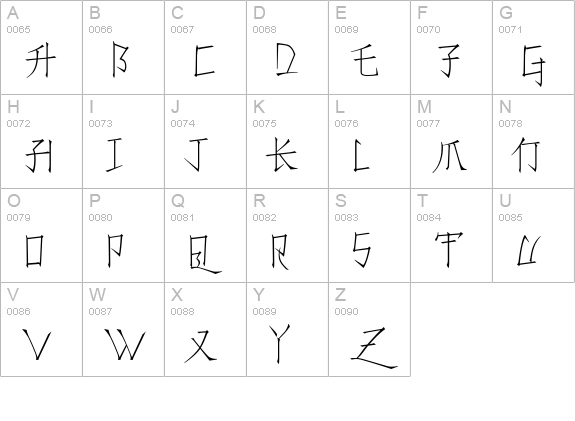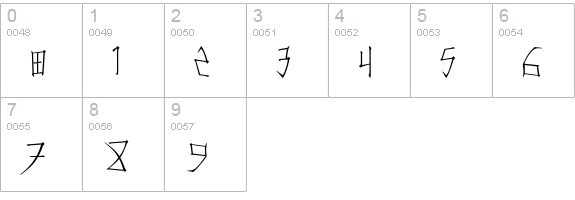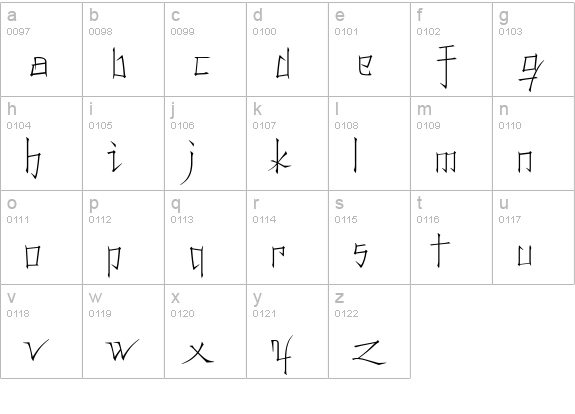
Konfuciuz Thin is a delicate, low-contrast variant in the Konfuciuz typeface family \xE2\x80\x94 well suited to fashion editorial, minimal branding, and high-contrast display.
Konfuciuz Thin font is a sleek and elegant typeface that exudes sophistication and modernity. With its delicate and refined appearance, this font is perfect for adding a touch of sophistication to any design project. The thin strokes and clear letterforms make it an ideal choice for logos, branding, headlines, and more. What sets Konfuciuz Thin font apart is not only its stylish design but also the fact that it is available for free download. That's right, you can easily access this stunning font at FontsMarket.com without any cost. Whether you are a designer looking for a new font to elevate your work or simply someone who appreciates beautiful typography, Konfuciuz Thin font is a must-have addition to your collection. Download it today and let your creativity shine with this amazing typeface.